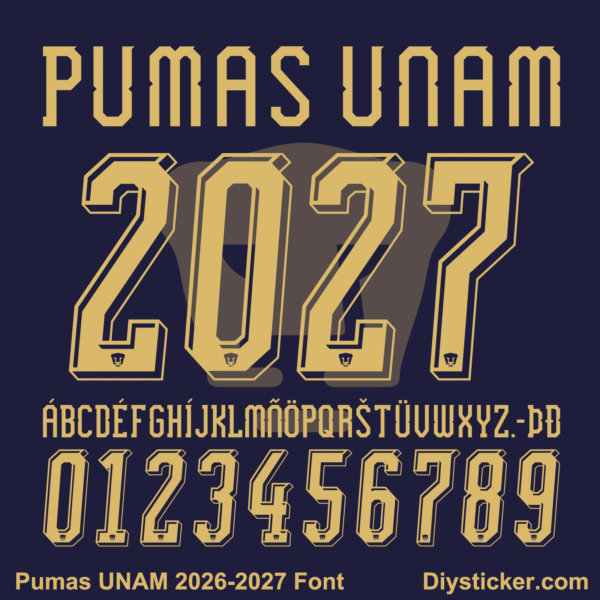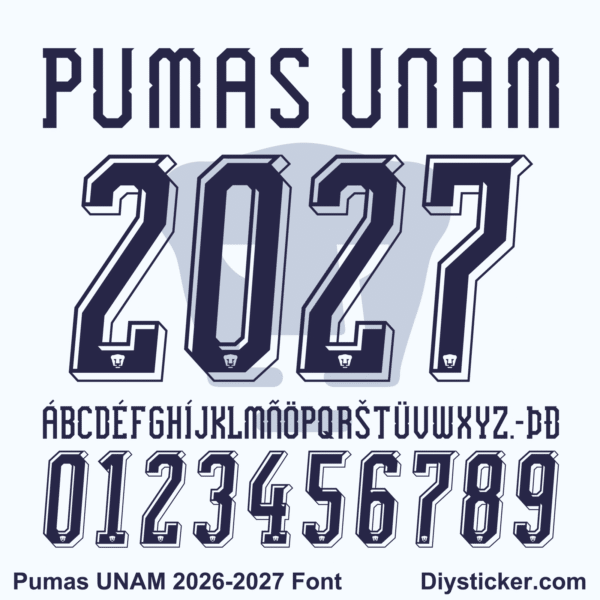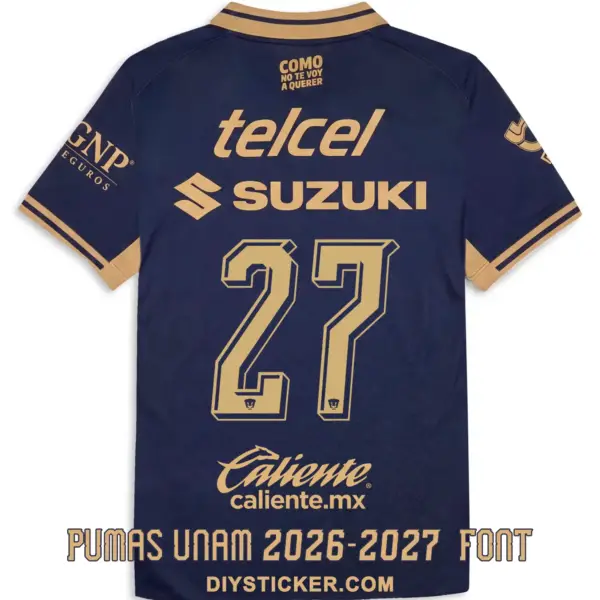
Pumas UNAM 2026-2027 Font & Numbers Download
Replicate the classic 3D athletic style of Los Universitarios! This digital typography file pack features the iconic Pumas UNAM 2026-2027 Font and Numbers set, available in both metallic gold and navy blue colorways. It is designed with sharp angular chamfers, inner inline tracks, dramatic 3D drop-shadow block depth, and the official Pumas crest emblem integrated at the base of every digit.
Complete athletic uppercase alphabet, squad numbers 0-9, and specific diacritic accents.
Elevate Your Kit Customization with the Pumas UNAM 2026-2027 Font
Upgrade your custom sports apparel catalog with the definitive match-day typography for one of Liga MX’s most iconic clubs! This digital typography product delivers the full Pumas UNAM 2026-2027 font style designed for upcoming Liga MX Apertura/Clausura and international tournament campaigns. Featuring heavy block-style letterforms, distinctive clipped inner corners, central inline accent paths, and a prominent 3D bevel/shadow effect, this layout ensures maximum visual impact against both home navy and away white shirt backdrops while embedding the famous Pumas face crest at the bottom of each squad number.
Comprehensive Character Mapping
A-Z Uppercase Alphabet: Tall, athletic block lettering featuring sharp inner chamfers built for high pitch visibility and clean spacing across player nameplates.
0-9 3D-Effect Numbers: Bold numeric glyphs with internal inline tracks, dramatic 3D bevel drop-shadows, and the official Pumas crest emblem neatly aligned at the base.
Special Accents & Diacritics: Complete set of punctuation marks and international accents (
Á,Ć,É,Ñ,Ö,Ř,Š,Ú,Ž,Þ,Ð, etc.) to accurately render names for star players.